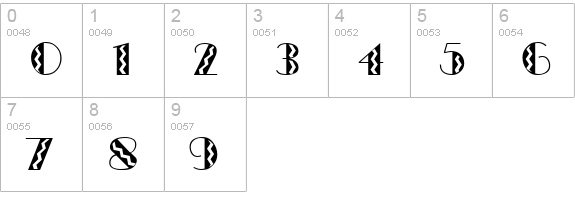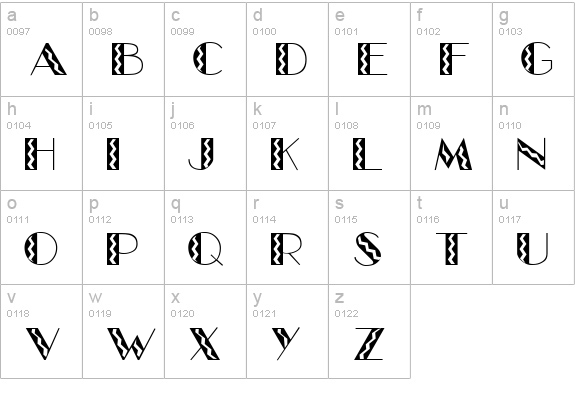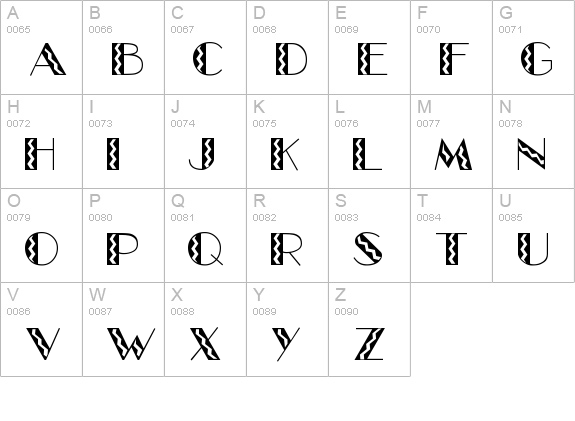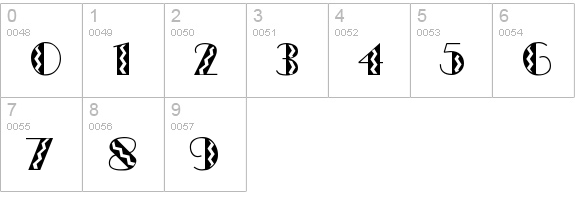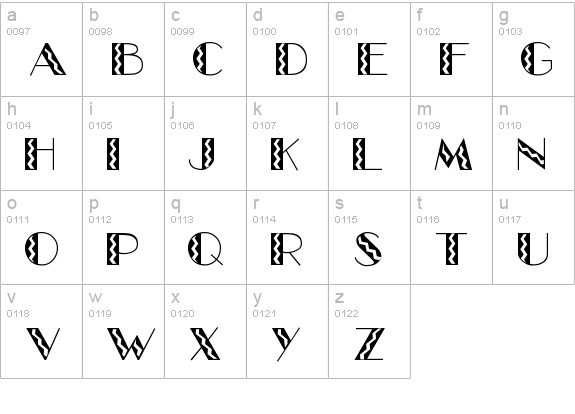
GlitzyFlash Regular is the standard, neutral variant in the GlitzyFlash typeface family \xE2\x80\x94 well suited to general body text, paragraphs, and standard typographic work.
GlitzyFlash Regular font is a dazzling and eye-catching typeface that exudes glamour and sophistication. With its sparkling details and elegant curves, this font is perfect for adding a touch of luxury to your designs. Whether you're creating invitations, posters, or branding materials, GlitzyFlash Regular will make your text shine and stand out. The best part? GlitzyFlash Regular font is available for free download at FontsMarket.com. Now you can add a touch of glitz and glamour to your projects without breaking the bank. Download GlitzyFlash Regular today and elevate your designs with a touch of sparkle!